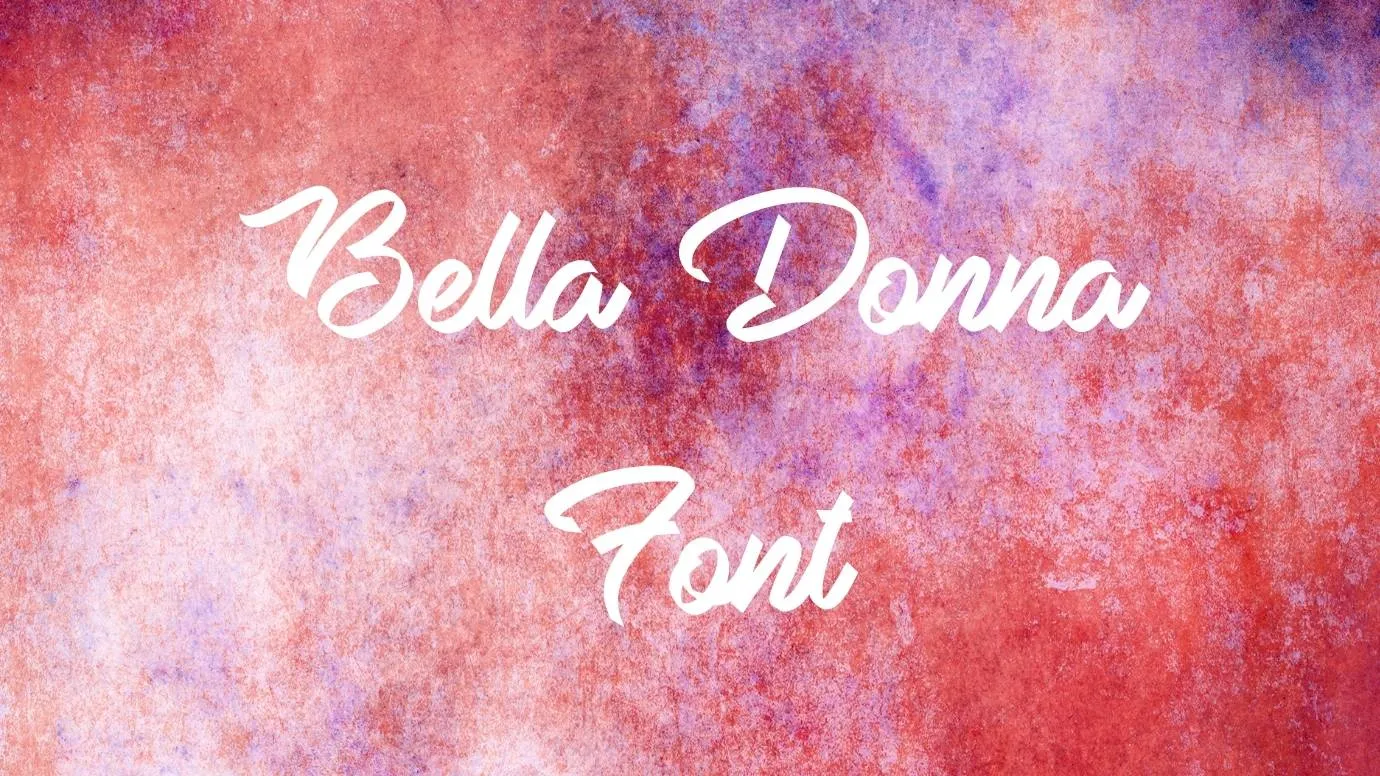
Bella Donna stands out as a widely favored and appealing font in the Script category. This inviting font was crafted by Rebecca Alaccari. The designer undertook the responsibility of developing this font and diligently worked on its design.
This typeface is more popular due to its classic style and amazing characters. The special letters of this cute font give an attractive and charming look to your projects. This classy typeface is also best for the paring with Fortunates December Font.
| Name | Bella Donna Font |
| Type | Script |
| Designer | Rebecca Alaccari |